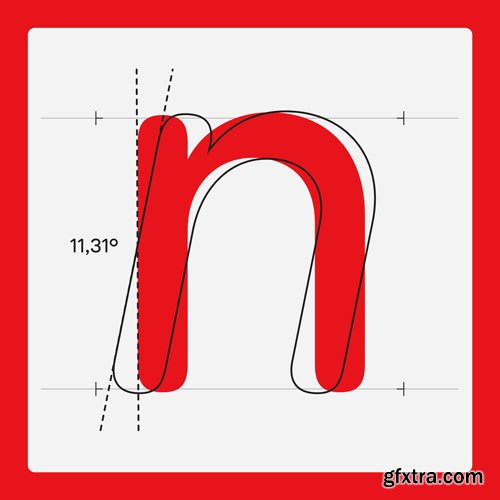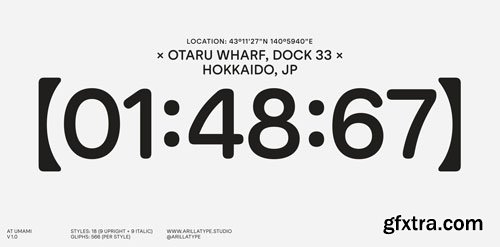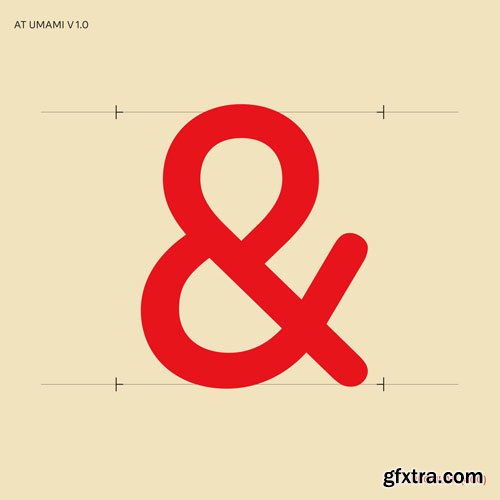
- At Umami is where East meets West in typographic harmony. Conceived during a flight from Tokyo to Madrid, this rounded sans-serif was inspired by a plethora of visual provocations experienced in Japan. The result is a savoury and bold typeface that adds depth and dimension to your designs.
- At Umami comes in 18 styles — from Air to Super, including Retina, an optimized weight for high-density screens. It includes a wide set of alternates, symbols, arrows, and smart OpenType features. By purchasing the full family, you also get the variable fonts.